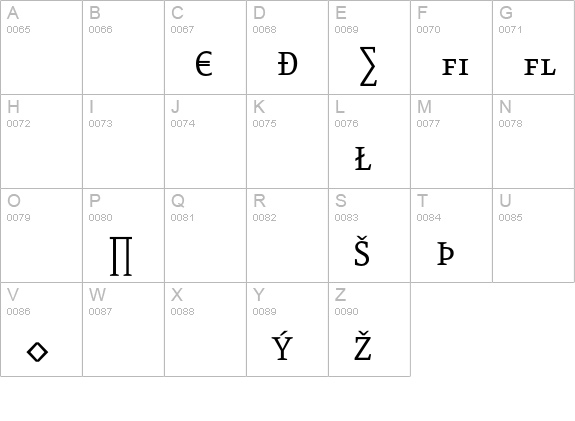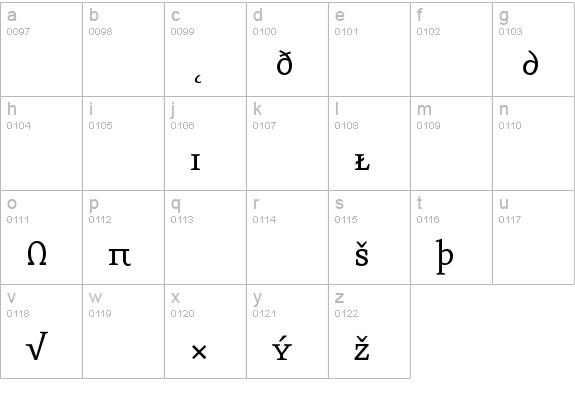
Eureka-SmallCapsExpert font is a sophisticated and versatile typeface that exudes elegance and professionalism. Its small caps design adds a touch of refinement to any text, making it perfect for formal documents, branding materials, and editorial design. The clean lines and balanced proportions of Eureka-SmallCapsExpert font make it a timeless choice for a wide range of projects. The best part? Eureka-SmallCapsExpert font is available for free download at FontsMarket.com. This means you can enhance your design projects with this high-quality font without any cost. Don't miss out on the opportunity to elevate your typography with Eureka-SmallCapsExpert font - download it today and see the difference it can make in your designs.